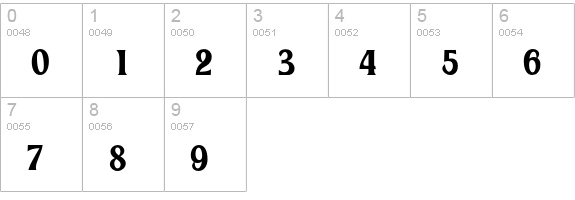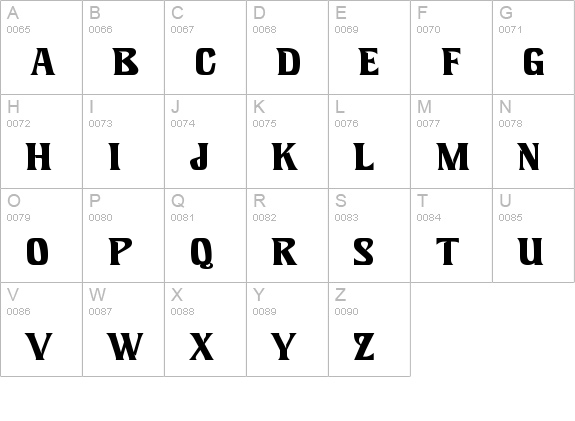
Introspect-Book Font Details
Introspect-Book is a comfortable, highly readable variant in the Introspect typeface family \xE2\x80\x94 well suited to long-form body text, articles, and editorial content.
Introducing Introspect-Book, a captivating and versatile font that combines elegance with modernity. This font is perfect for those who seek a sophisticated and refined look for their design projects. With its clean lines and balanced proportions, Introspect-Book effortlessly exudes a sense of professionalism and creativity. One of the remarkable features of Introspect-Book is its ability to adapt to various design purposes. Whether you are working on a logo, branding, packaging, or even a website, this font will seamlessly integrate and enhance your overall aesthetic. Its versatility allows it to be used in both headline and body text, ensuring a harmonious and cohesive visual experience. But what truly sets Introspect-Book apart is its availability as a free download at FontsMarket.com. Yes, you read that right – this exceptional font can be yours without any cost. FontsMarket.com is a trusted platform that offers an extensive collection of fonts, and Introspect-Book is one of their standout offerings. This generosity allows designers, creatives, and enthusiasts alike to access and utilize this remarkable font without any barriers. Downloading Introspect-Book from FontsMarket.com is a breeze. Simply visit their website and search for Introspect-Book in their vast font library. Once you find it, click the download button and voila! The font is yours to explore and implement in your projects. So, why wait? Embrace the beauty and versatility of Introspect-Book in your designs today. With its free availability at FontsMarket.com, you can elevate your creative endeavors without any restrictions. Let Introspect-Book be your trusted companion, guiding you towards captivating and visually stunning design solutions.